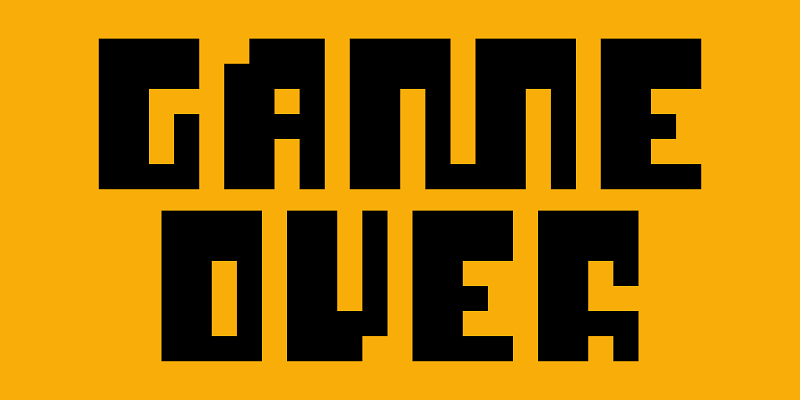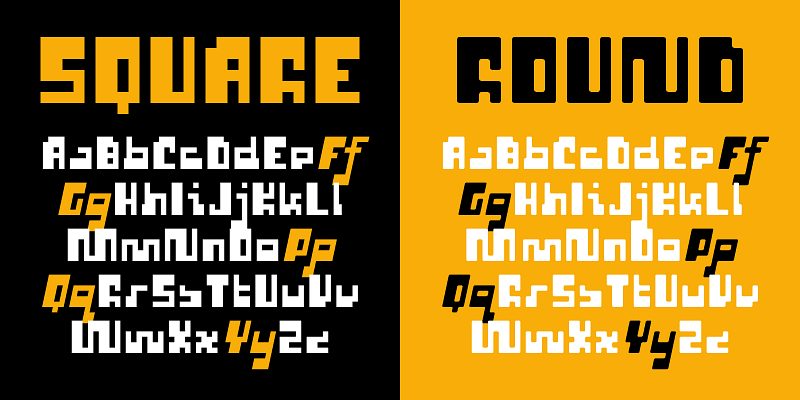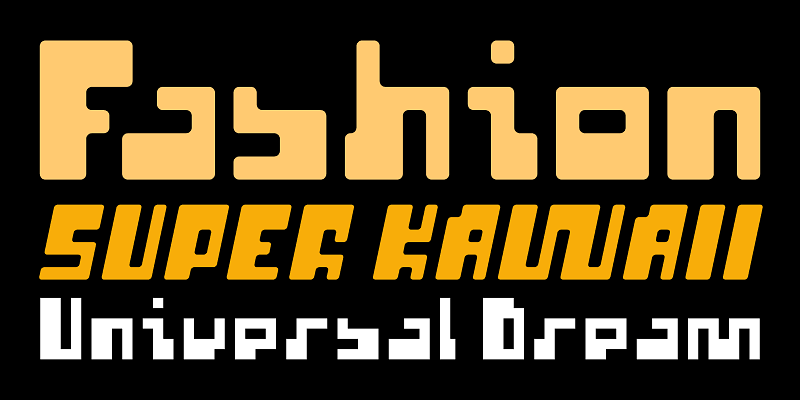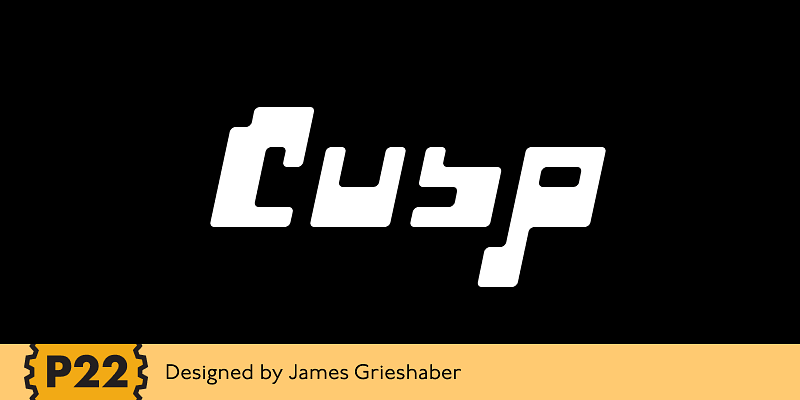
P22 Cusp is a super kawaii modular display font family designed with the tension between Art Deco restraint and techno playfulness. Geometric repetition and quirky proportions give Cusp a distinctive style which is perfect for riso-printed zines, experimental posters, synthwave album art, expressive branding, or any project that thrives on typography with attitude. Two styles were created from these basic letterforms: square and round. The result is a versatile display font family.